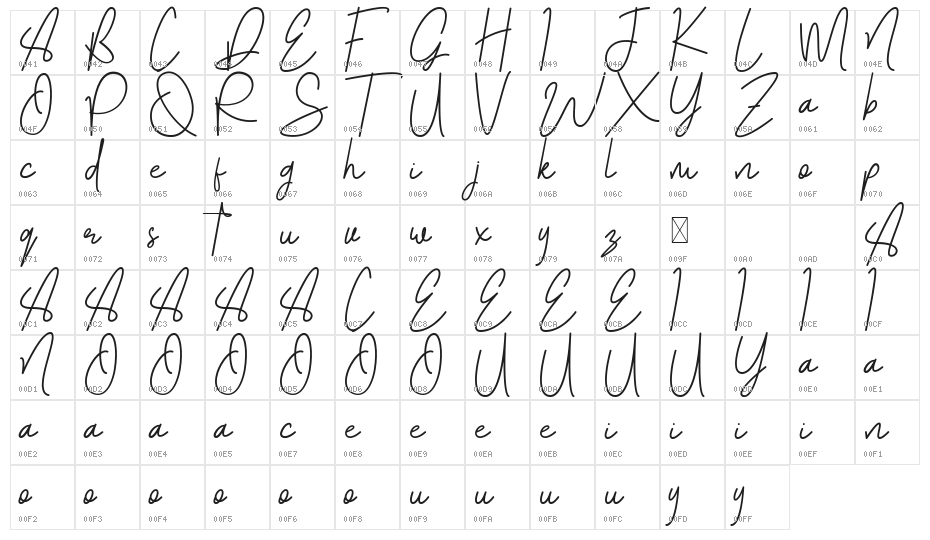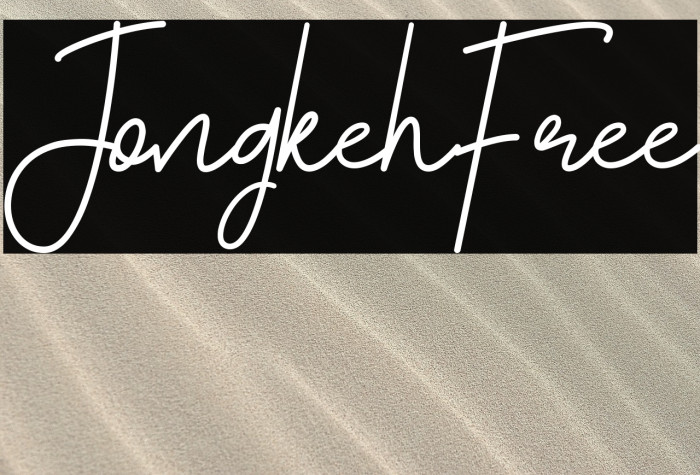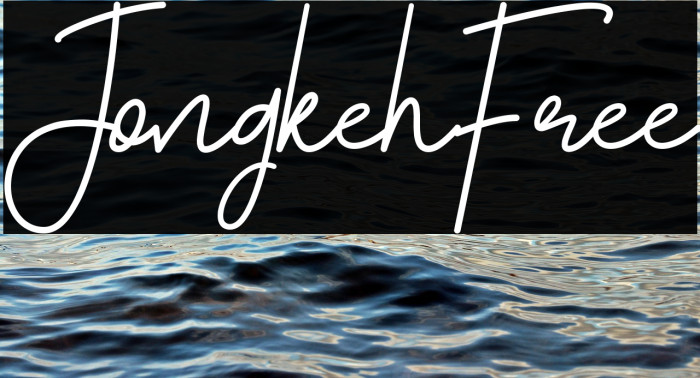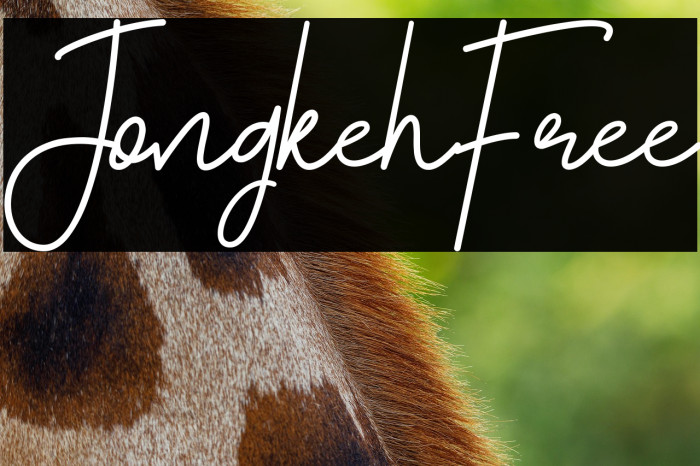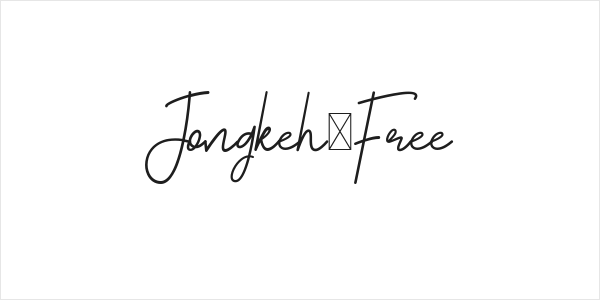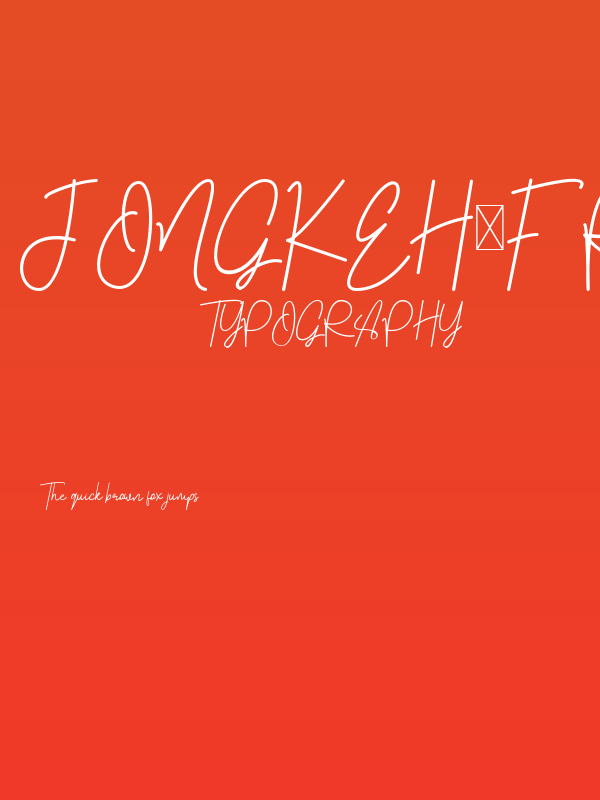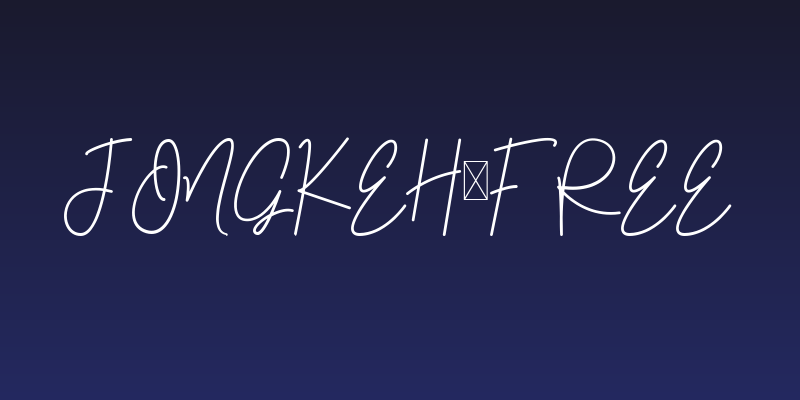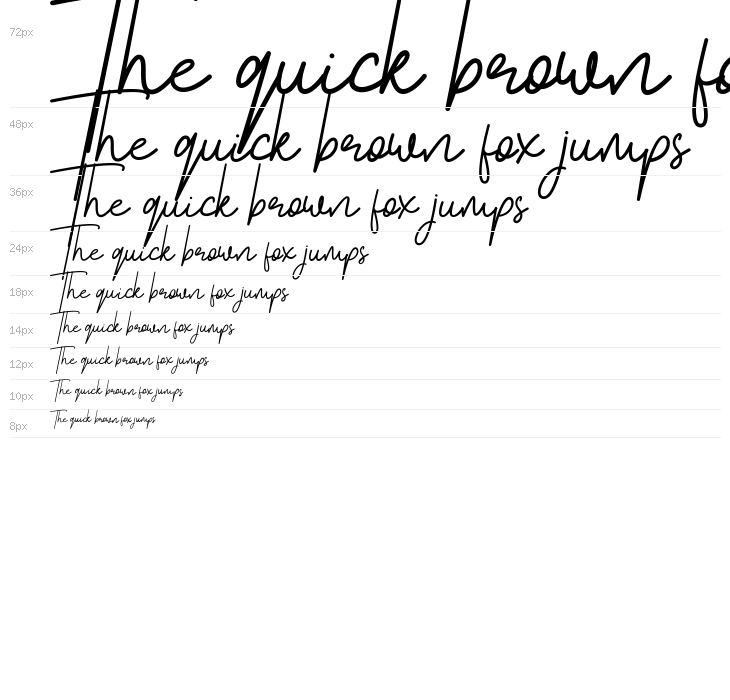
Jongkeh-Free Font
Jongkeh-Free Description
This font features a dynamic and expressive handwritten style, characterized by its fluid and continuous strokes. The uppercase letters are tall and slender, with a slight slant that adds a sense of motion and elegance. The lowercase letters maintain a consistent flow, with some characters featuring loops and flourishes that enhance the overall aesthetic. The numbers and special characters are crafted with the same attention to detail, ensuring a cohesive look across all elements. This font's playful yet sophisticated appearance makes it versatile for various design applications.
| Proposed Projects | Ideal for personal branding, wedding invitations, greeting cards, and creative projects that require a personal touch. |